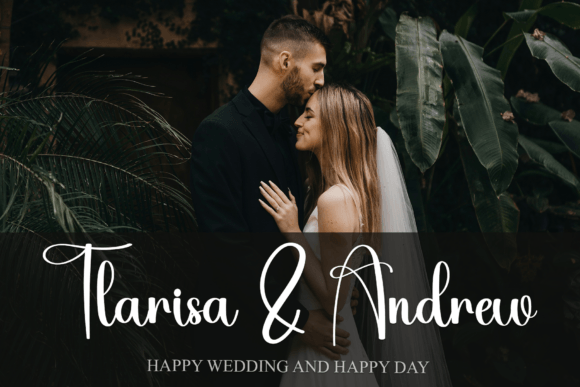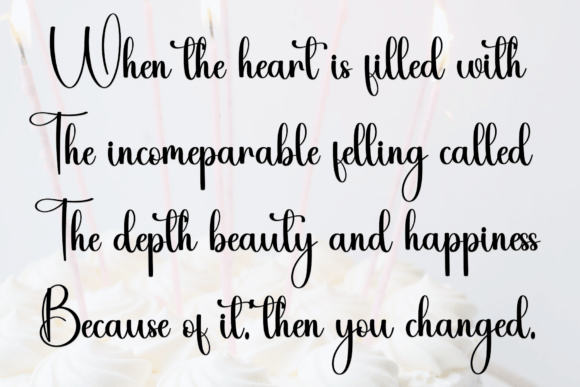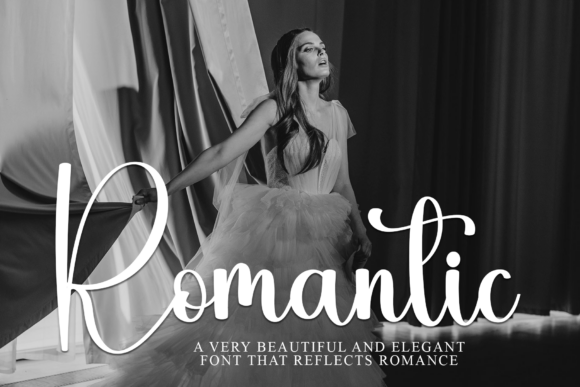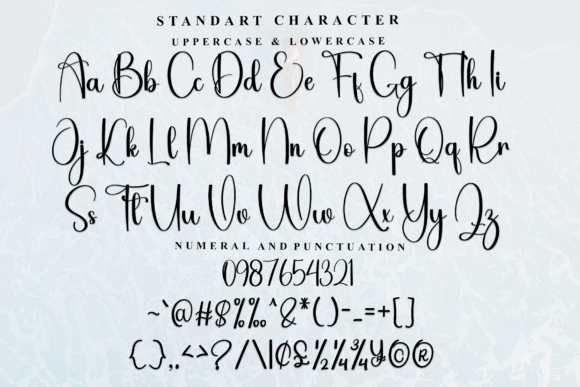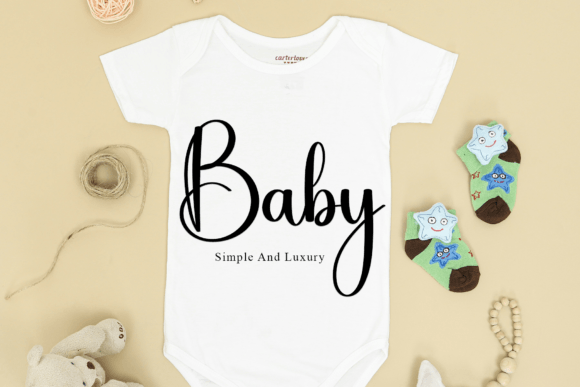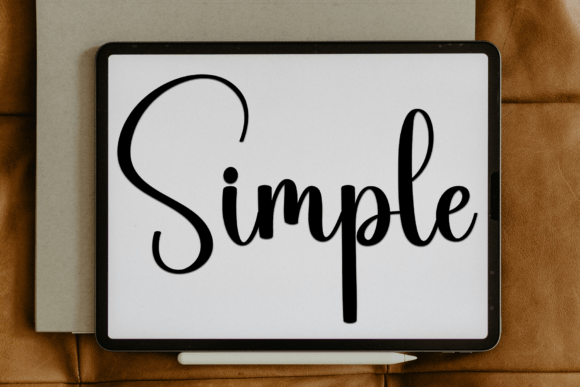
Bridger Font: A Beautiful and Attractive Addition to Your Design Arsenal
In the world of typography, fonts play a crucial role in conveying messages, expressing emotions, and creating visual identities. Among the numerous fonts available, Bridger Font stands out for its unique blend of softness, distinctiveness, and versatility. In this article, we’ll explore the features, benefits, and uses of Bridger Font, making it an essential read for designers, crafters, and anyone interested in typography.
The Birth of Bridger Font
Bridger Font is a carefully crafted typeface, designed to evoke a sense of softness and approachability. Its creator aimed to produce a font that not only catches the eye but also conveys a sense of meaning and purpose. The result is a font that is both beautiful and attractive, perfect for a wide range of design applications.
Key Features of Bridger Font
Bridger Font boasts several key features that make it an excellent addition to any designer’s toolkit:
- Unique Stroke: The font’s distinctive stroke sets it apart from other typefaces, giving it a unique character that can be used to create visually appealing designs.
- Soft Touch: The soft touch of Bridger Font makes it perfect for designs that require a gentle, approachable feel.
- Extensive Character Set: With a wide range of characters, Bridger Font offers designers the flexibility to create complex designs, making it ideal for various applications, including handicrafts and art projects.
Applications of Bridger Font
Bridger Font’s versatility makes it suitable for a variety of design applications, including:
- Graphic Design: Use Bridger Font to create stunning visual identities, logos, and branding materials that capture the essence of your brand.
- Handicrafts: Add a touch of elegance and sophistication to your handmade products, such as cards, gift tags, and other paper crafts.
- Art Projects: Experiment with Bridger Font in your art projects, from typographic installations to digital art pieces.
- Digital Design: Employ Bridger Font in your digital designs, including websites, social media graphics, and mobile app interfaces.
Why Choose Bridger Font?
Bridger Font offers several benefits that make it an attractive choice for designers and crafters:
- Natural Font Style: The font’s natural style makes it suitable for various products, allowing you to create cohesive brand identities.
- Attracts Attention: Bridger Font’s unique character and soft touch make it attention-grabbing, ensuring your designs stand out in a crowded market.
- Easy to Read: The font’s clear and legible design ensures that your message is conveyed effectively, making it perfect for body text and headings.
Bridger Font is a beautiful and attractive addition to any designer’s arsenal. Its unique blend of softness, distinctiveness, and versatility makes it perfect for a wide range of design applications. Whether you’re a graphic designer, crafter, or artist, Bridger Font offers the flexibility and creative freedom to bring your ideas to life. With its extensive character set, cross-platform compatibility, and natural font style, Bridger Font is an excellent choice for anyone looking to elevate their designs and create visually stunning works of art.